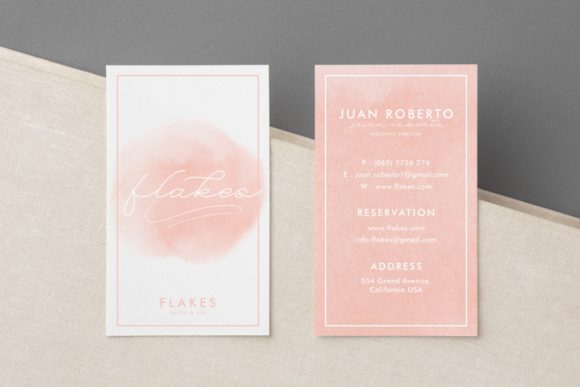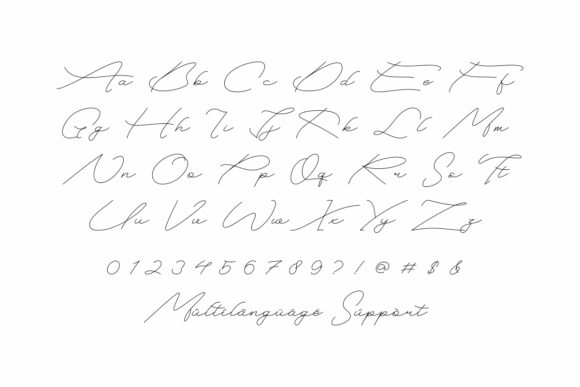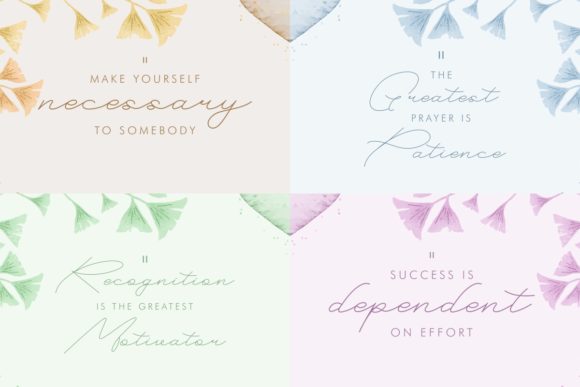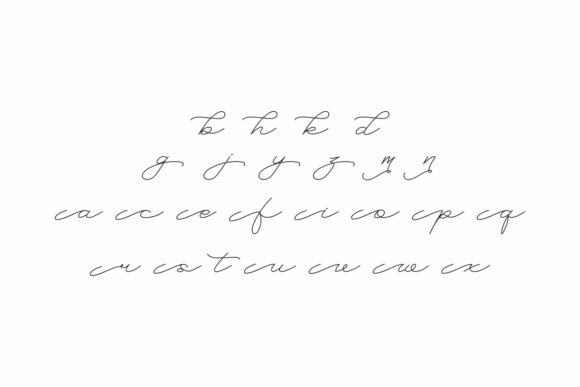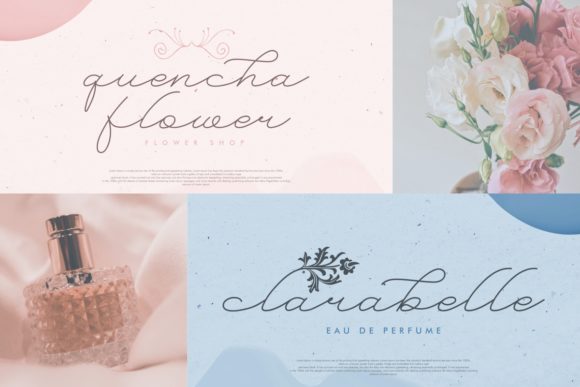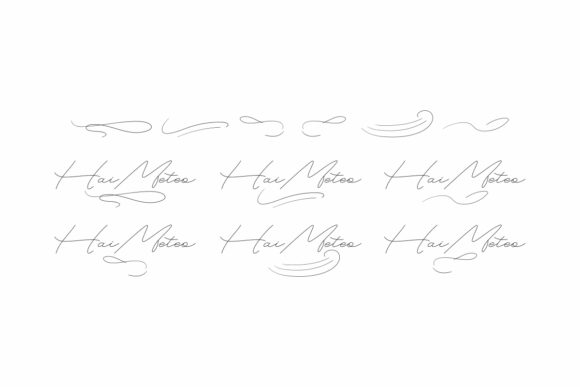
Introducing Hai Meteo Font: Elevate Your Designs with Elegance
In the world of typography, the right font can make all the difference in transforming your design from ordinary to extraordinary. For those seeking a touch of elegance and sophistication, the Hai Meteo Font is an exceptional choice. This thin and delicate handwritten font is designed to bring a new level of realism to your ideas, enabling you to create spectacular designs that capture attention and inspire.
The Beauty of Hai Meteo Font
Hai Meteo Font stands out with its slender lines and delicate strokes, offering a fresh and modern aesthetic that can elevate a wide range of design projects. Whether you’re working on a branding project, crafting beautiful wedding invitations, designing engaging social media graphics, or creating compelling packaging, this font is versatile enough to fit various creative needs.
One of the significant advantages of the Hai Meteo Font is its PUA (Private Use Area) encoding. This feature allows designers to access all the glyphs and swashes easily, providing greater flexibility and creativity in their work. With PUA encoding, you can unlock the full potential of the font, experimenting with different combinations to achieve unique and personalized designs.
Key Features of Hai Meteo Font
• Thin and Delicate: The font’s thin and delicate nature makes it perfect for designs that require a touch of elegance and sophistication.
• Handwritten Style: Adds a personal and human touch to your designs, making them more relatable and engaging.
• PUA Encoded: Ensures easy access to all glyphs and swashes, allowing for a wide range of creative possibilities.
• Versatile: Suitable for a variety of design projects, from digital content to print materials.
• Pair with Complementary Fonts: Combine Hai Meteo Font with other fonts to create contrast and hierarchy in your designs.
• Experiment with Swashes: Use the swashes available in the font to add flair and personality to your text.
• Adjust Weight and Size: Play with different weights and sizes to add depth and emphasis to your design.
Who Can Benefit from Hai Meteo Font?
Hai Meteo Font is an excellent resource for a wide range of designers and crafters, including:
• Graphic Designers: Looking for elegant and versatile fonts for branding, advertising, and promotional materials.
• Wedding Planners and Stylists: Seeking delicate and beautiful fonts for wedding invitations, decor, and related stationery.
• Digital Content Creators: Needing stylish and readable fonts for blogs, social media posts, and video scripts.
• Crafters: Creating handmade cards, journals, and other paper crafts that require a personal touch.
Hai Meteo Font offers a unique combination of elegance, versatility, and creative freedom, making it an invaluable addition to any designer’s toolkit. Its delicate appearance and PUA encoding ensure that your designs stand out with a touch of sophistication and personality. Whether you’re a professional designer or a crafting enthusiast, Hai Meteo Font is sure to inspire your next project and help you achieve stunning results.